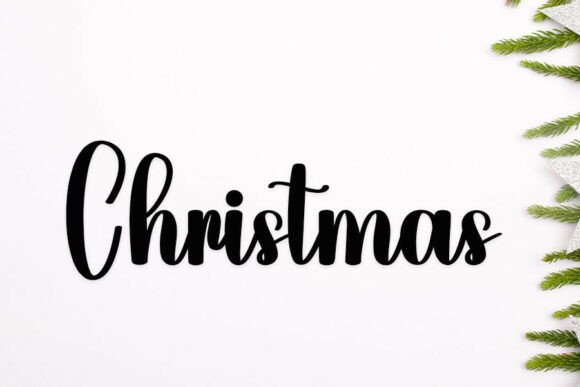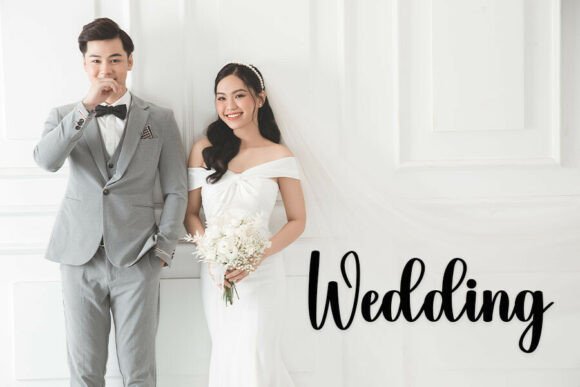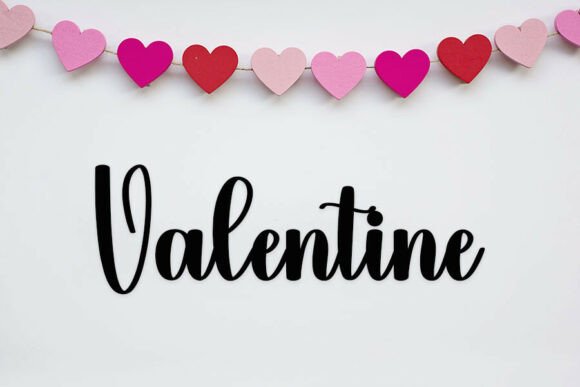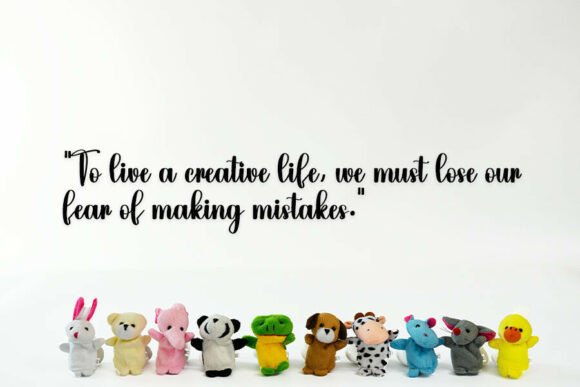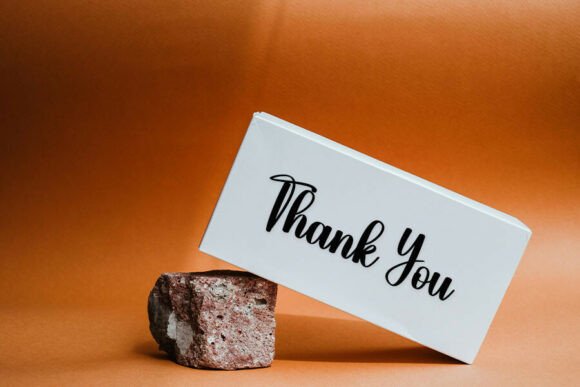
Introducing Country Font: The Sweet and Elegant Handwritten Font for Your Design Needs
Are you looking for a font that can add a touch of elegance and romance to your designs? Look no further than Country Font, a beautiful and cursive handwritten font that is perfect for a variety of design projects. With its gentle and sweet appearance, Country Font is sure to make your designs stand out and leave a lasting impression.
What Makes Country Font Special?
Country Font is a unique and versatile font that can be used for a wide range of design ideas. Its cursive and handwritten style gives it a personal and friendly touch, making it perfect for designs that require a human and approachable feel. Whether you’re working on a branding project, a wedding invitation, or a fashion lookbook, Country Font is sure to add a touch of elegance and sophistication.
One of the best things about Country Font is its ability to convey a sense of joy and romance. Its flowing lines and gentle curves make it perfect for designs that require a lighthearted and playful touch. At the same time, its elegant and refined appearance ensures that it can also be used for more formal designs, such as logos and marketing materials.
Country Font is a versatile font that can be used for a wide range of design projects, including:
- Branding: Use Country Font to create a unique and memorable brand identity that stands out from the crowd.
- Logos: Create a beautiful and elegant logo that showcases your brand’s personality and style.
- Wedding Things: Add a touch of romance and elegance to your wedding designs, such as invitations, programs, and decorations.
- Greeting Cards: Create beautiful and heartfelt greeting cards for special occasions, such as birthdays, anniversaries, and holidays.
- Fashion: Use Country Font to add a touch of elegance and sophistication to your fashion designs, such as lookbooks and marketing materials.
- Marketing Promotion: Create eye-catching and effective marketing materials, such as brochures, flyers, and posters, that showcase your brand’s personality and style.
Why Choose Country Font?
There are many reasons why Country Font is a great choice for your design needs. Here are just a few:
- Elegant and Refined: Country Font has an elegant and refined appearance that is perfect for designs that require a touch of sophistication.
- Versatile: Country Font can be used for a wide range of design projects, from branding and logos to wedding designs and marketing materials.
- Easy to Read: Country Font is easy to read and understand, making it perfect for designs that require a clear and concise message.
- Unique: Country Font has a unique and distinctive style that will make your designs stand out from the crowd.
Tips for Using Country Font
Here are a few tips for using Country Font in your designs:
- Use it with a Simple Background: Country Font looks best with a simple background that doesn’t compete with the font’s elegant and refined appearance.
- Experiment with Different Colors: Country Font can be used with a variety of colors, so don’t be afraid to experiment and find the perfect color scheme for your design.
- Use it for Headings and Titles: Country Font is perfect for headings and titles, where its elegant and refined appearance can really shine.
Overall, Country Font is a beautiful and versatile font that is perfect for a wide range of design projects. Its elegant and refined appearance, combined with its joyful and romantic touch, make it a great choice for designers and crafters who want to add a touch of sophistication and elegance to their designs.